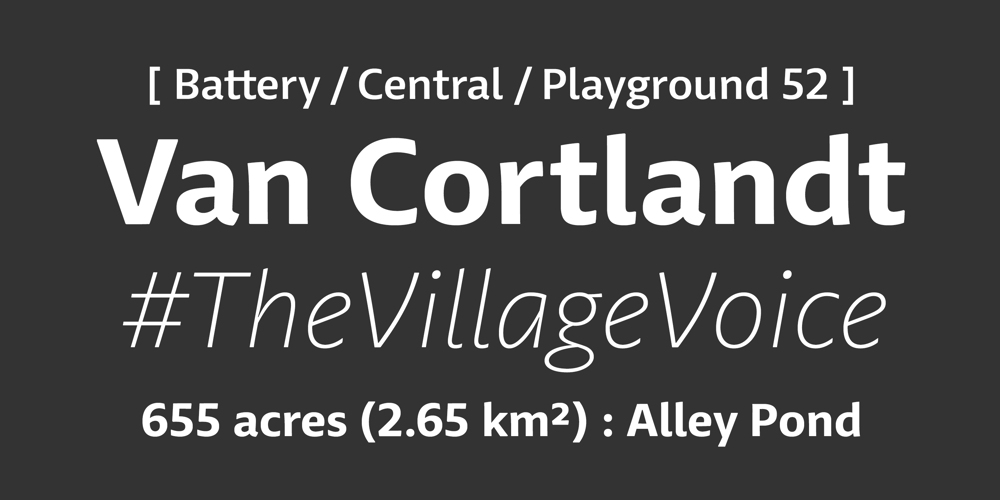
FS Irwin Font Family was designed by Fernando Mello and published by Fontsmith. FS Irwin contains 12 styles and family package options. New York vibesFS Irwin was born in New York while Senior Designer, Fernando Mello, was studying an intensive 5 week typeface design course at the Cooper Union. His brief was to design a perfectly clear typeface that could communicate well, without loud or overtly mannered design features. Fernando was influenced by the subway font in New York: ‘It is very in your face and clear, always in bold. It doesn’t shout much but at the same time is very present and unique. The design is completely different but it was this spirit I wanted to capture for FS Irwin.’ And the vibe of the city: ‘In a similar way to London, New York is so mixed and so cosmopolitan. I was amazed by the different styles and identities I saw there, and tried to encapsulate this essence to create something new, relevant and very now.’Incisive qualityRather than focusing on quirks or distinctive characteristics, the key to FS Irwin is the quality of its design and spirit of simplicity. The design, proportions and details are usable and authentic and it is suitable for countless situations, without running the risk of being instantaneously noticeable. Families like this can be used on nearly anything, from more playful designs to serious corporate IDs.‘Extensively tested and precisely drawn text-oriented typefaces are what I enjoy designing the most. There is a beauty and a different approach, a different way of making them interesting, sellable and usable rather than adding flicks or unexpected details.’Inscriptions and calligraphyFS Irwin’s origin lies in Fernando’s studies in inscriptional lettering and writing-calligraphic exercises at the Cooper Union. Mello started the process by digitising his explorations and adapting them into a more workable sans serif structure. The traditional forms of writing which gave the basis to Latin type as we know it today were the perfect place to start. This influence can be seen in the proportion of the capitals and in slight writing-calligraphic details in the lowercase, such as the slightly angled, chiselled spurs and their open terminals.